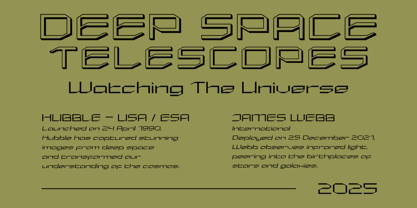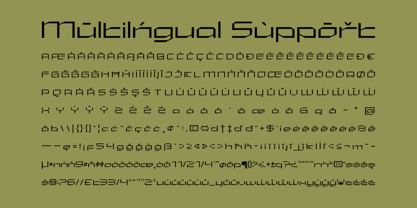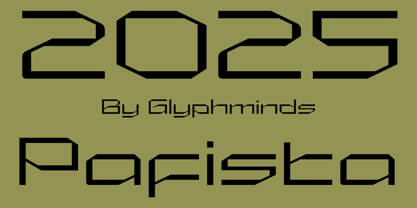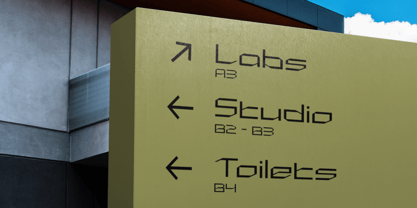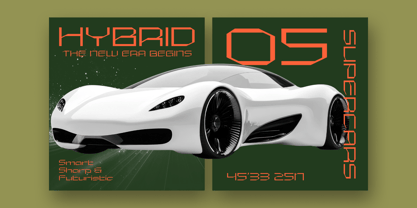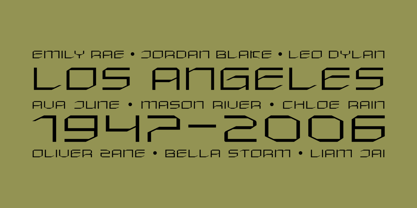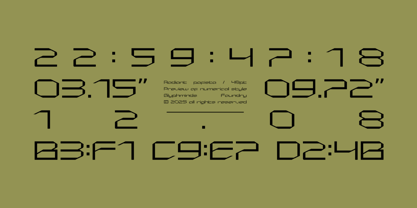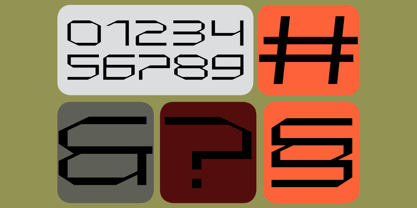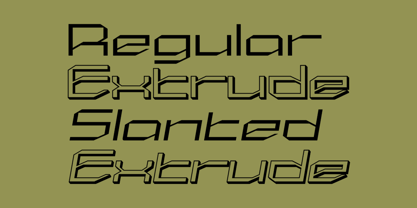
Pafista
by Glyphminds Studios
The Pafista Font Family was designed by Baliya Ibnu Bi Malkan and published by Glyphminds Studios. Pafista contains 4 styles and family package options.
Step into the future with Pafista, a powerful and dynamic display font that will launch your designs into a new dimension. With its sharp angles, bold geometric construction, and unique stencil-like details, Radiant Pafista is engineered to make a statement.
This font captures the essence of modern technology, sci-fi worlds, and digital landscapes. The clean, wide letterforms provide a strong, assertive look, while the italicized version adds a sense of motion and speed.
Pafista is perfect for:
• Tech Branding & Logos: Create a memorable identity for a startup, app, or tech company.
• Gaming & Esports: Design striking titles, overlays, and promotional materials that stand out.
• Posters & Event Flyers: Command attention for movies, concerts, and tech events.
• Album Covers & Apparel: Give your merchandise a futuristic, edgy vibe.
• Headlines & Digital Displays: Ensure your message is seen and felt.